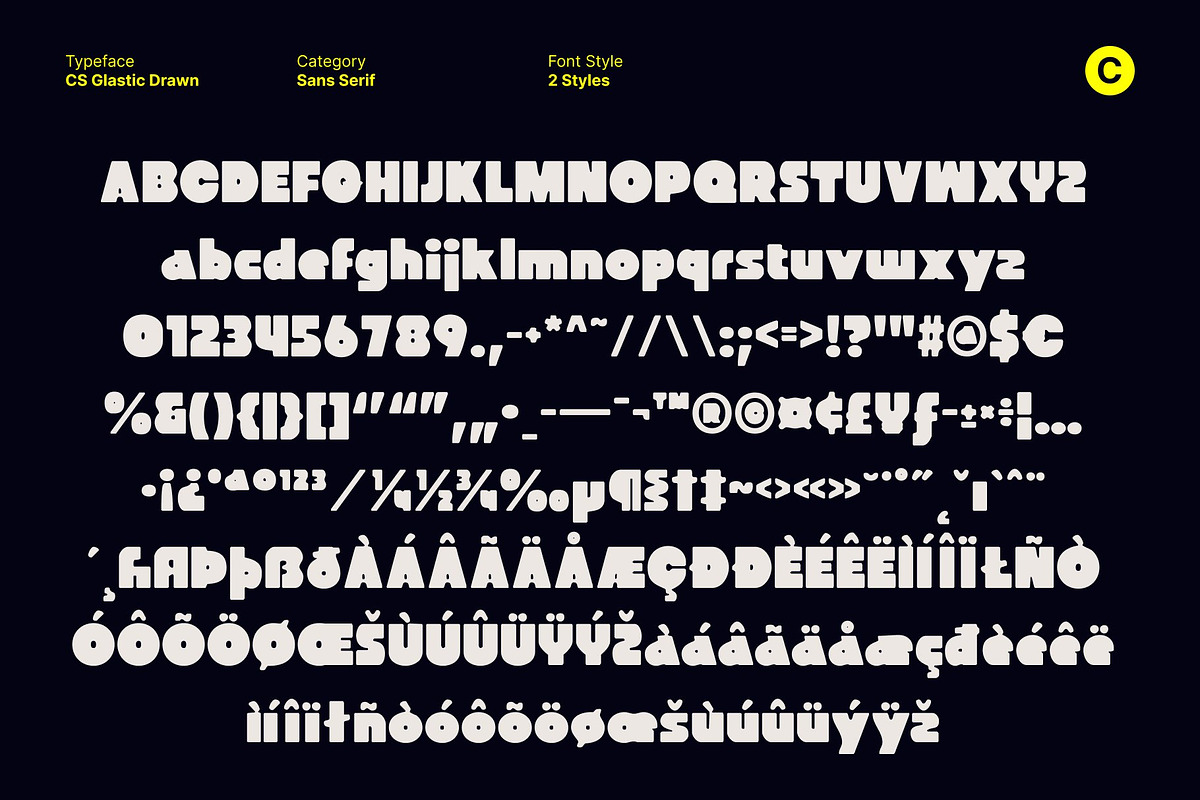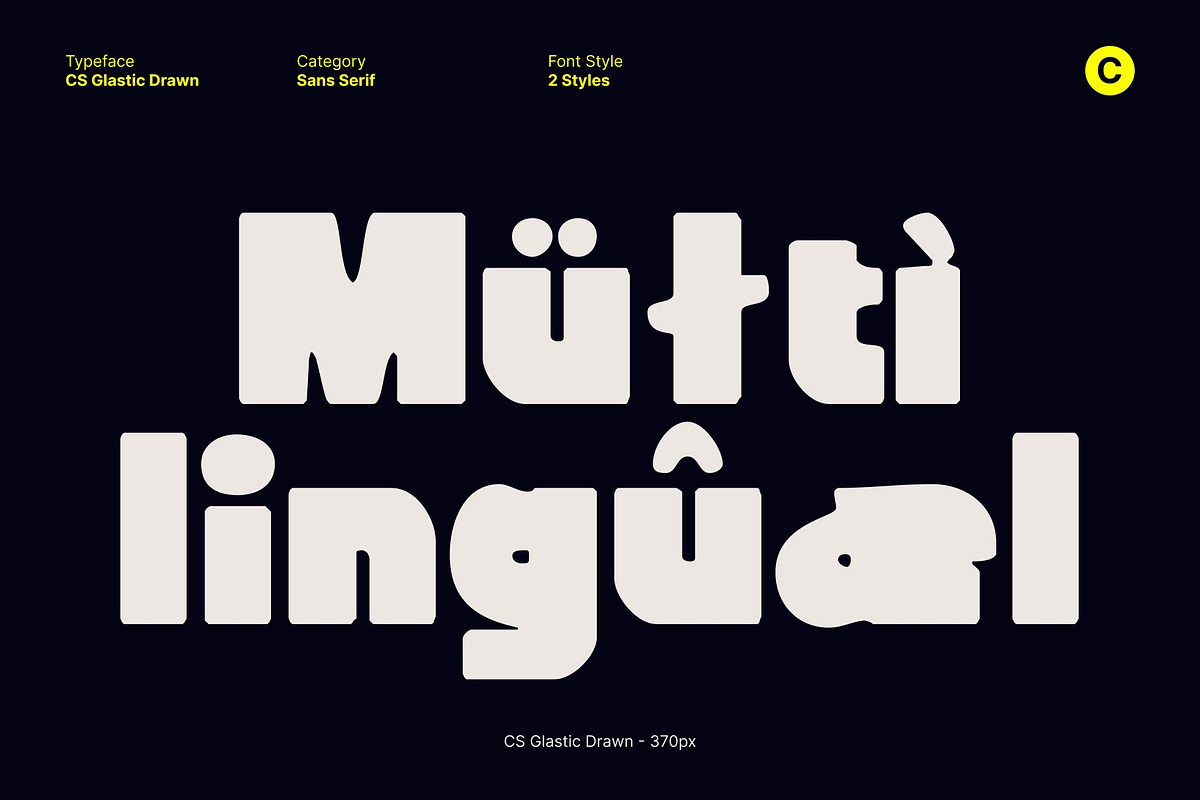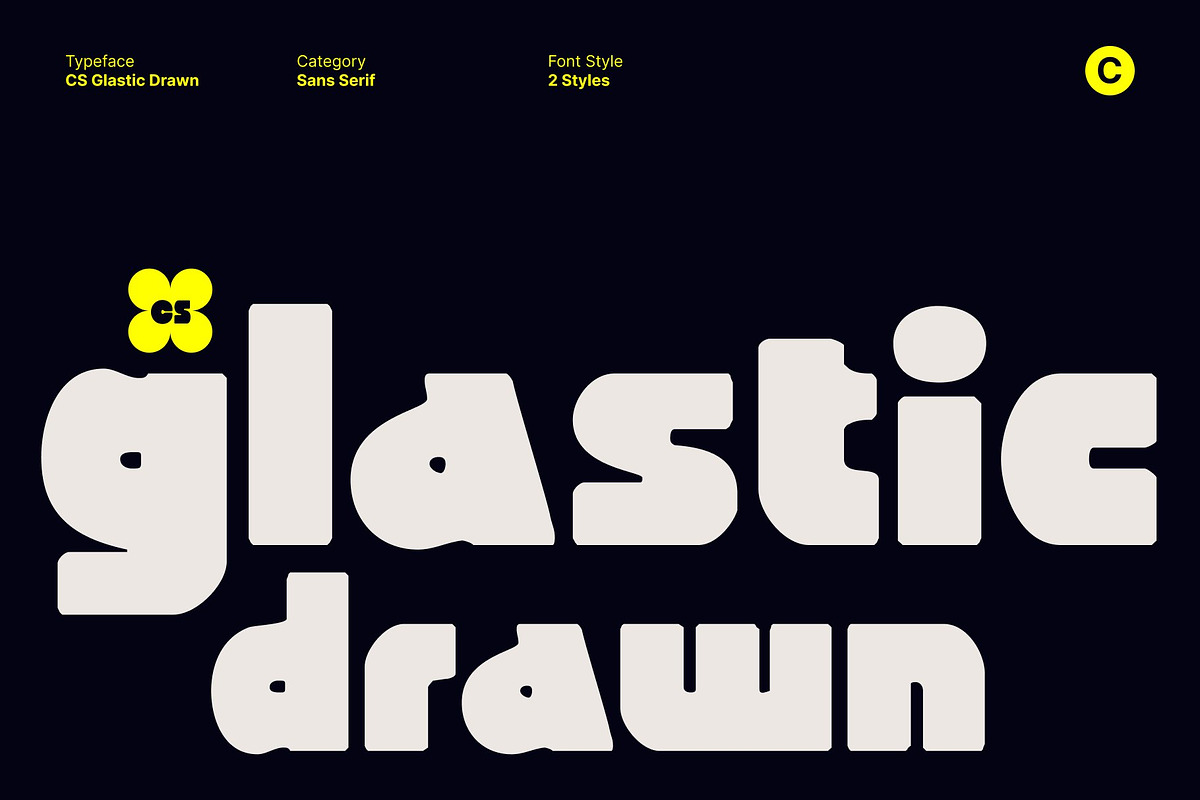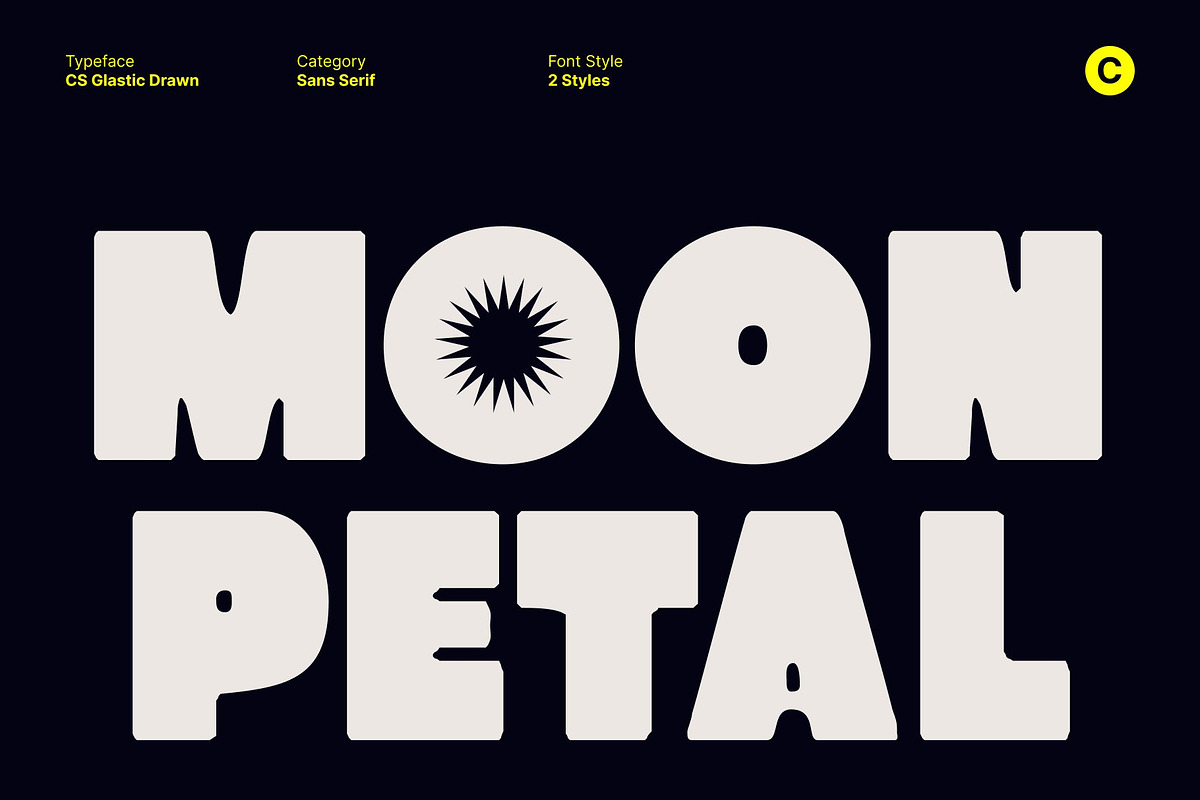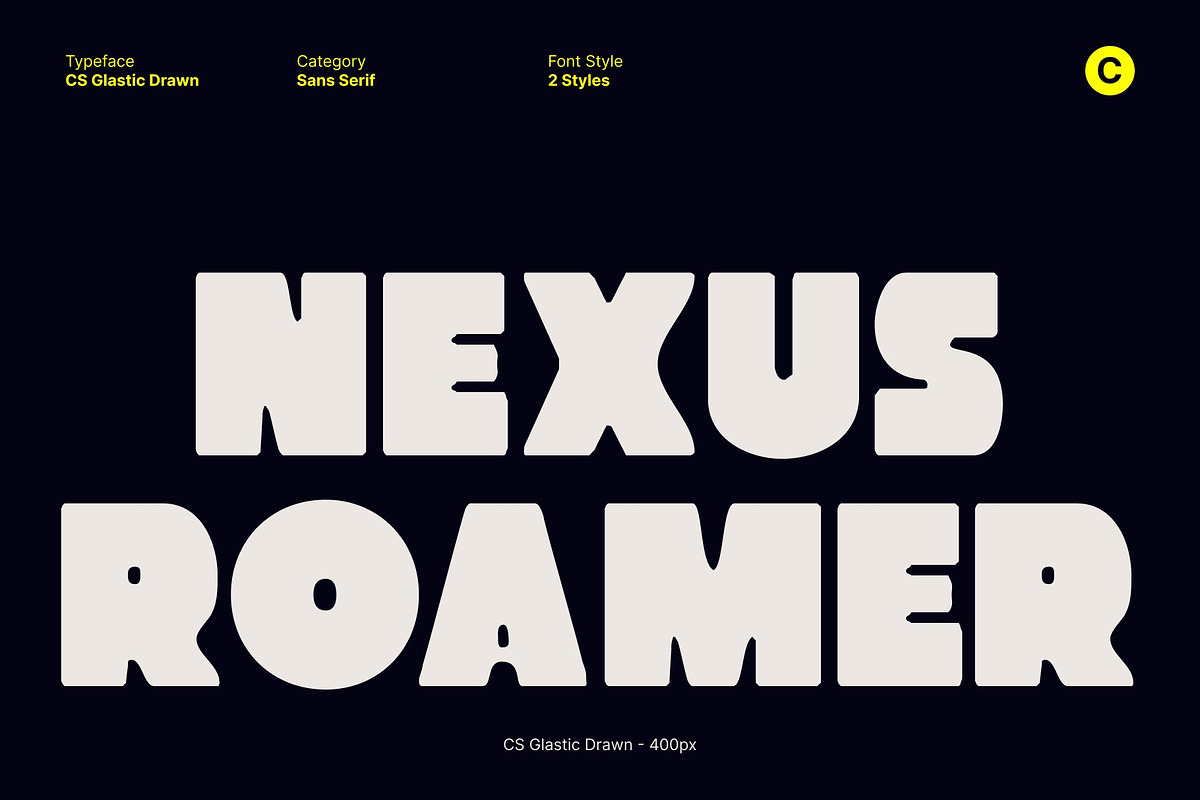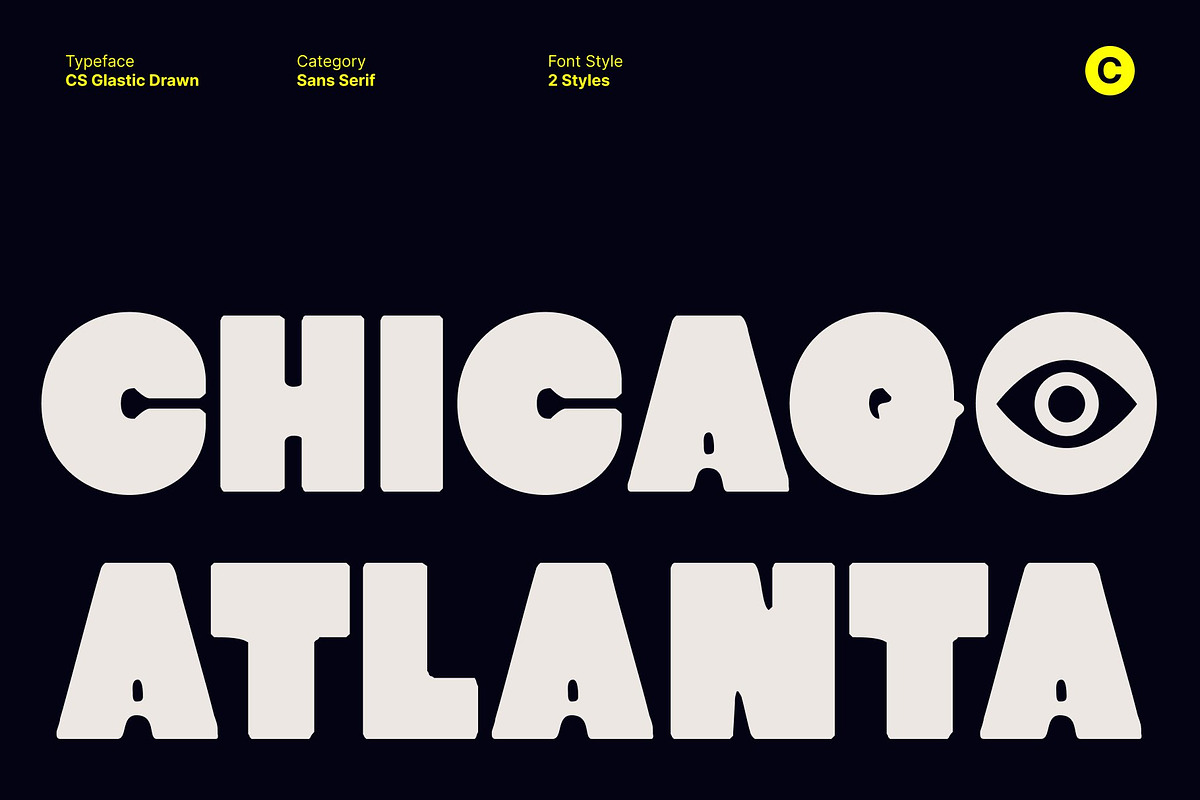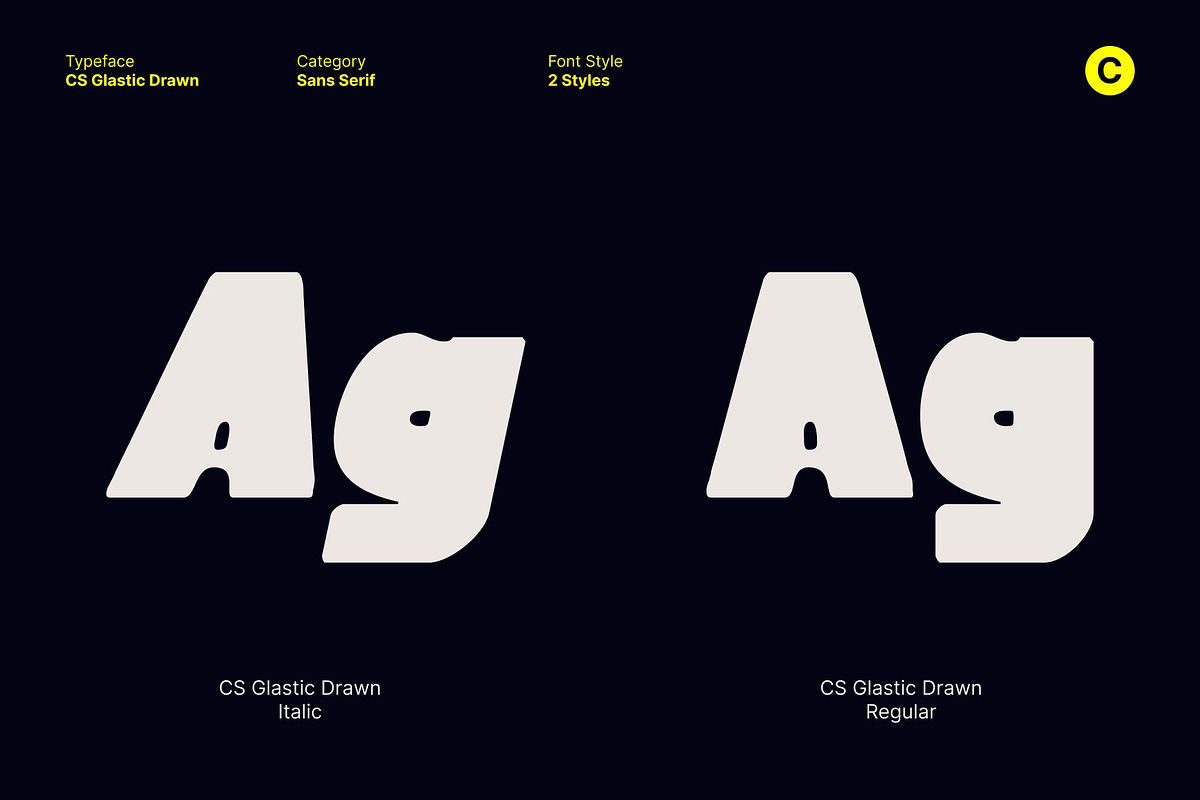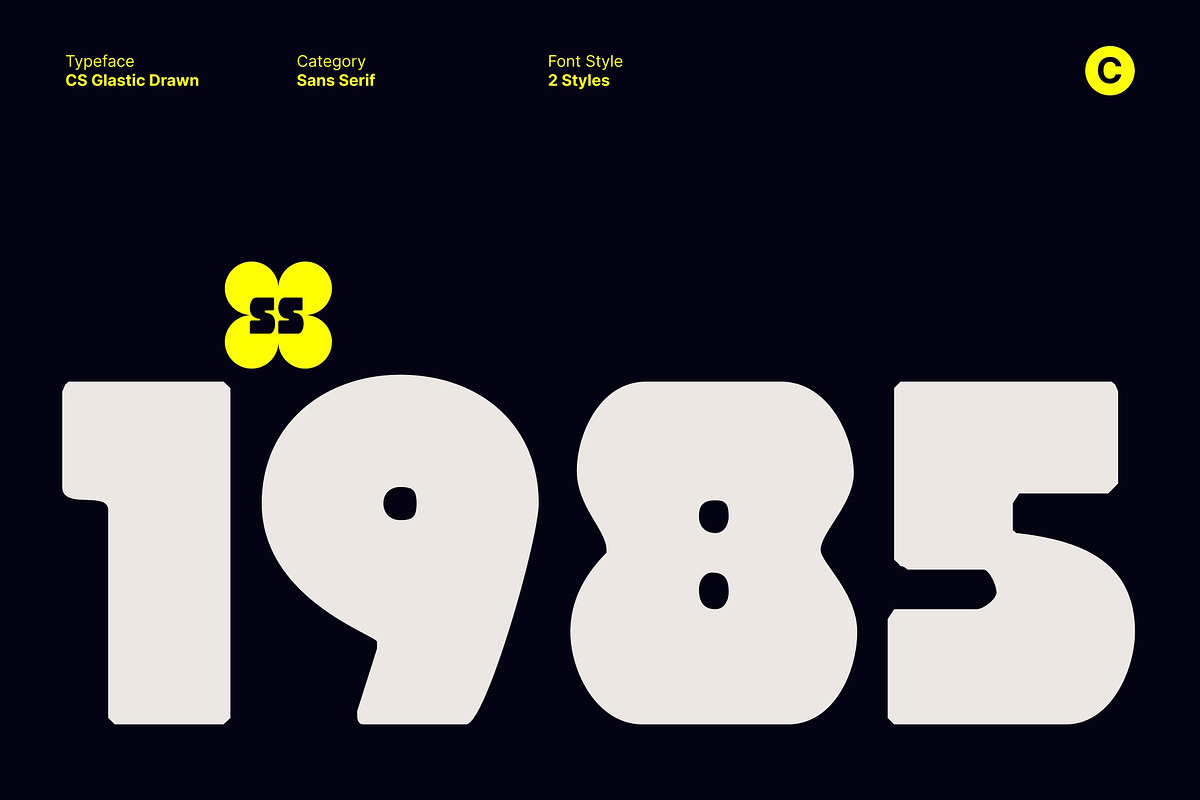
CS Glastic Drawn
CS Glastic Drawn – Bold Geometry with Funky Modern Energy
Modern Sans Serif Display Font with Hand-Drawn Geometric Impact This is a modern sans serif display font designed to deliver bold visual impact through strong geometric construction, enhanced with a playful hand-drawn finish. Built from confident shapes and solid proportions, this font combines clean structure with expressive texture, creating a look that feels modern, energetic, and full of character.
Clean Geometry with Softened Hand-Drawn Personality The letterforms are defined by sharp geometric foundations, softened by a subtle drawn texture that adds warmth and uniqueness. Strong lines and balanced spacing give the font a confident stance, while the hand-drawn details introduce slight irregularities that prevent it from feeling rigid or mechanical.
Funky Expression with Unique Modern Energy What sets apart is its funky character woven into its geometric framework. Playful proportions and distinctive details are amplified by the drawn effect, giving each letter a lively, expressive feel. The result is a font that feels youthful, creative, and dynamic while remaining clear and readable in display use.
Perfect for Bold, Creative, and Contemporary Designs Designed for standout applications, this font is perfect for branding, posters, logos, packaging, and promotional materials that demand attention. Its bold geometry, funky energy, and hand-drawn texture make it especially suitable for creative brands, fashion graphics, entertainment visuals, and modern campaigns.
- CS Glastic Drawn Regular
- CS Glastic Drawn Italic